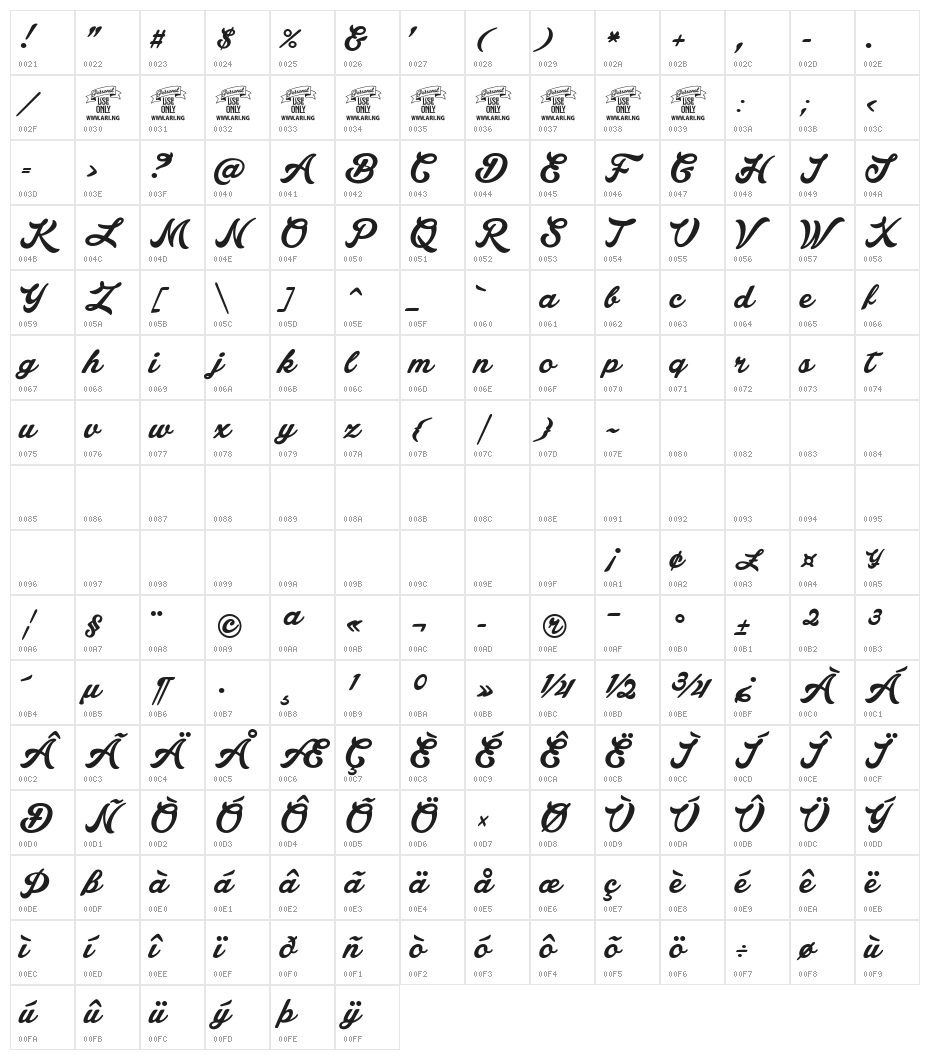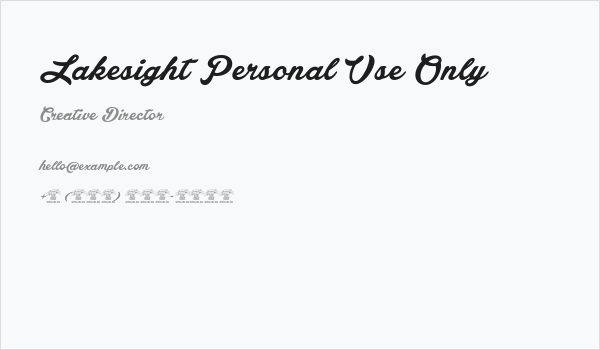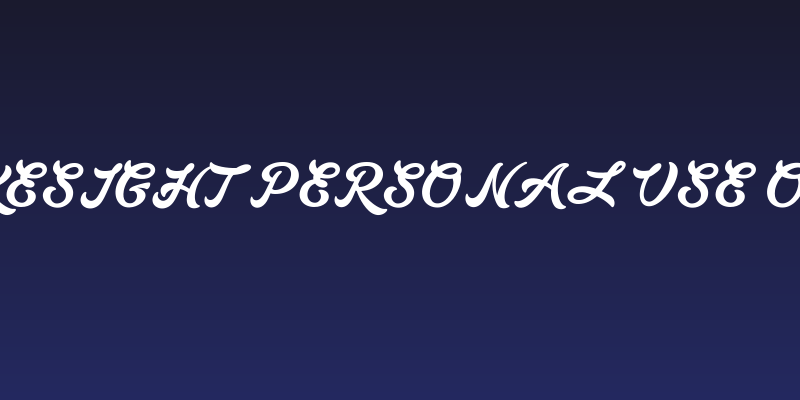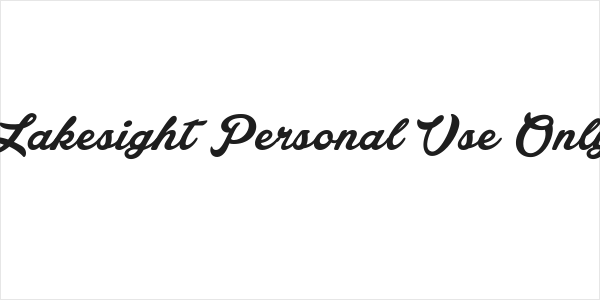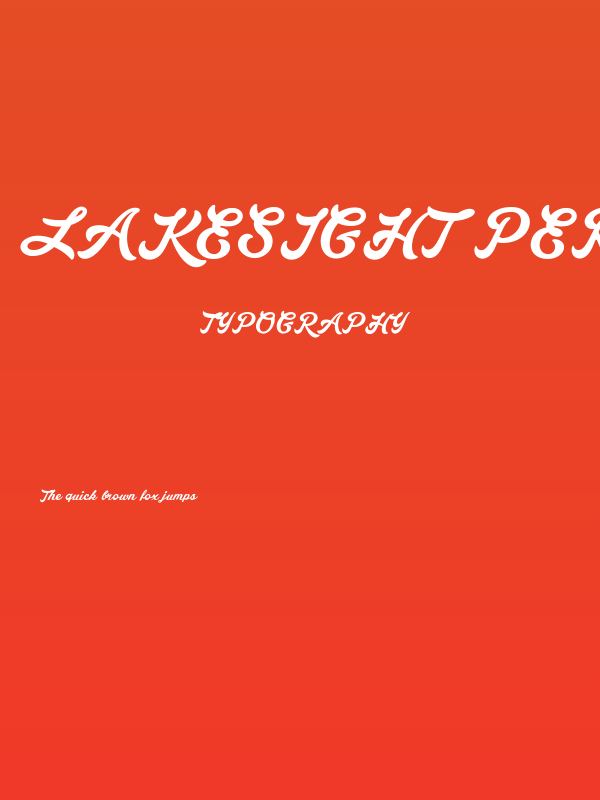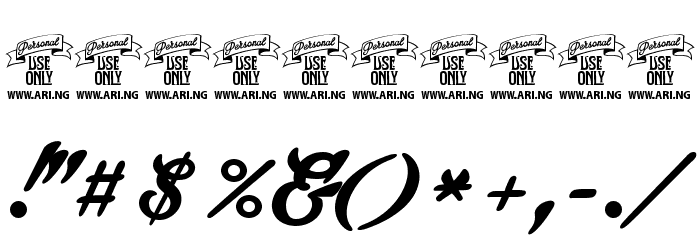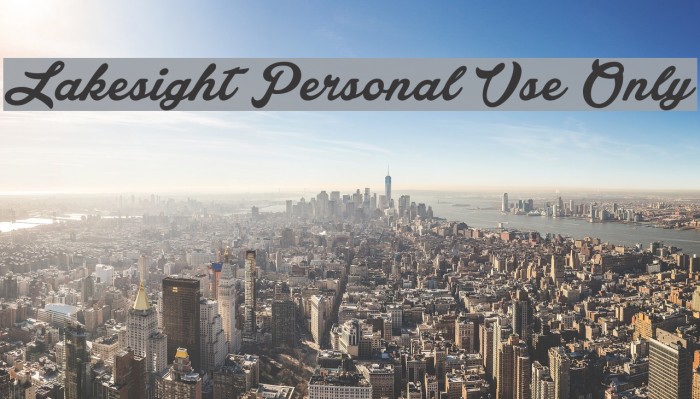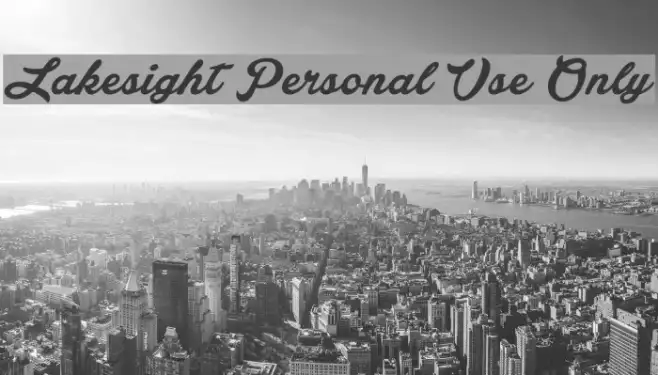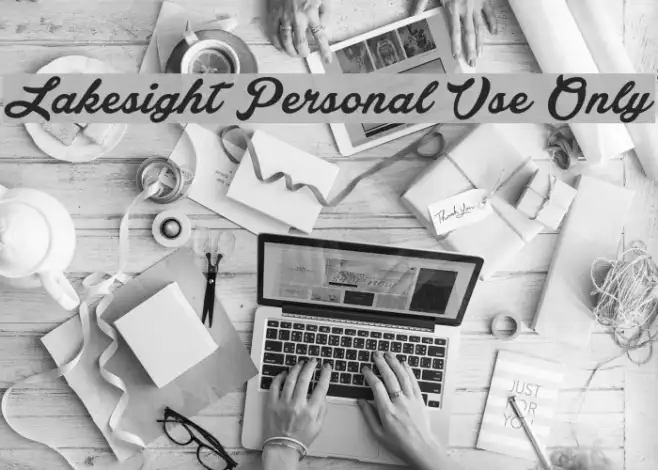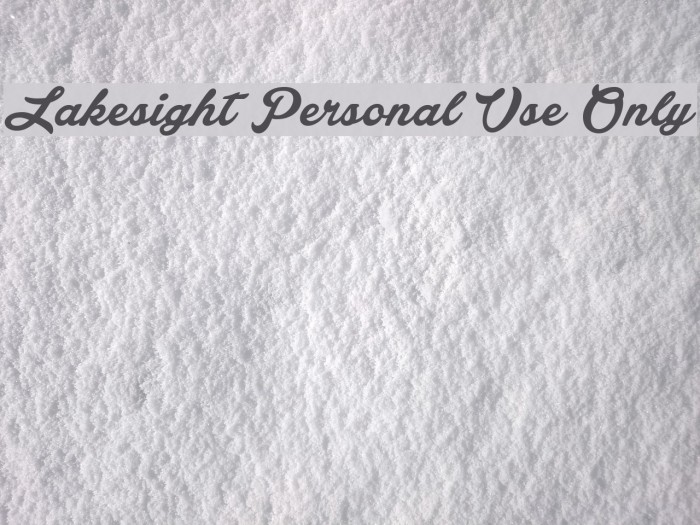
Lakesight Personal Use Only Font
Lakesight Personal Use Only Description
This font features a bold, cursive style with smooth, flowing lines that give it a dynamic and elegant appearance. The uppercase letters are slightly more ornate, with flourishes that enhance their decorative appeal. The lowercase letters maintain a consistent flow, making them highly legible while retaining a stylish flair. The numerals and special characters are designed to match the overall aesthetic, ensuring a cohesive look across all text. This font is ideal for projects that require a touch of sophistication and creativity.
| Proposed Projects | Ideal for wedding invitations, branding, logos, and elegant signage. |